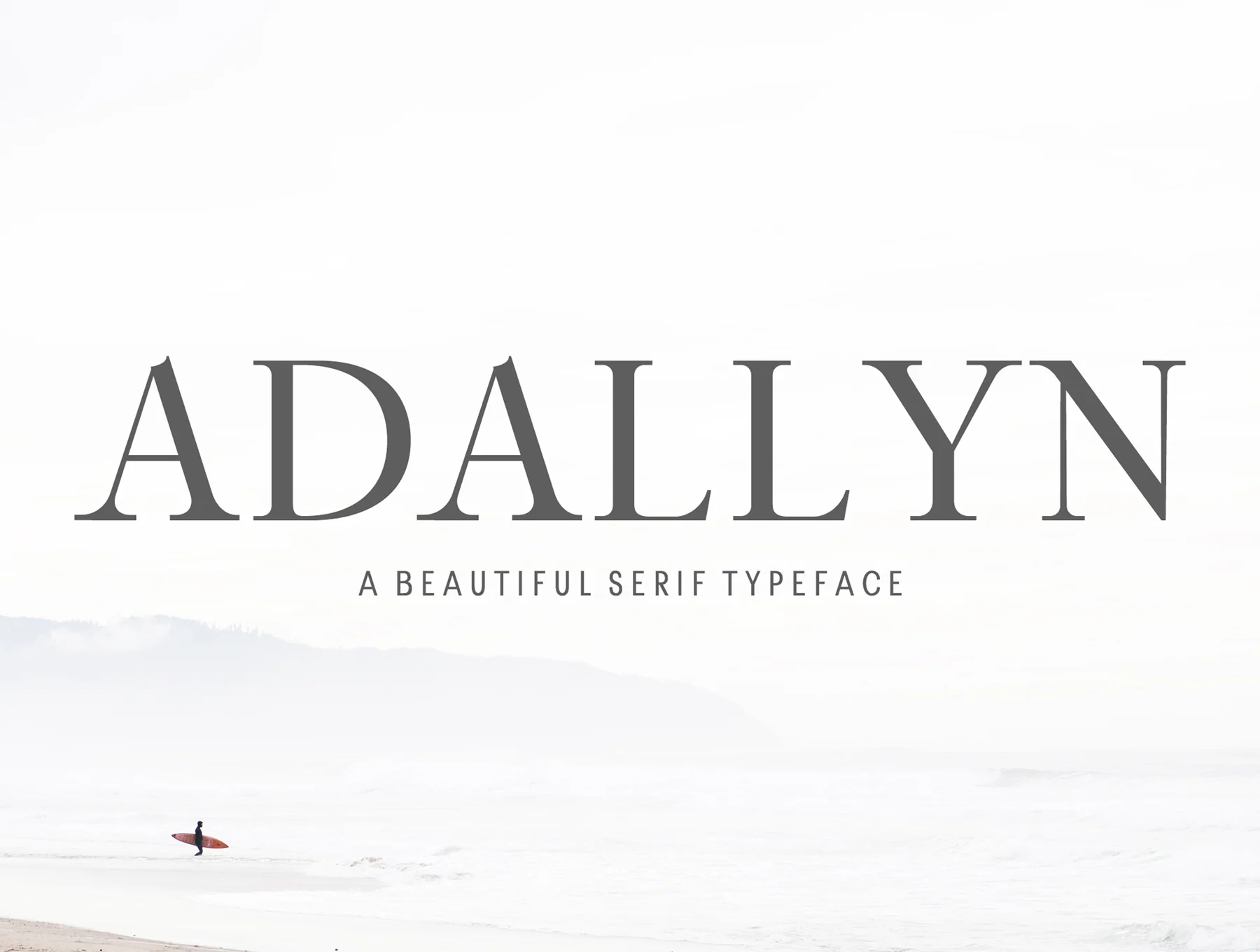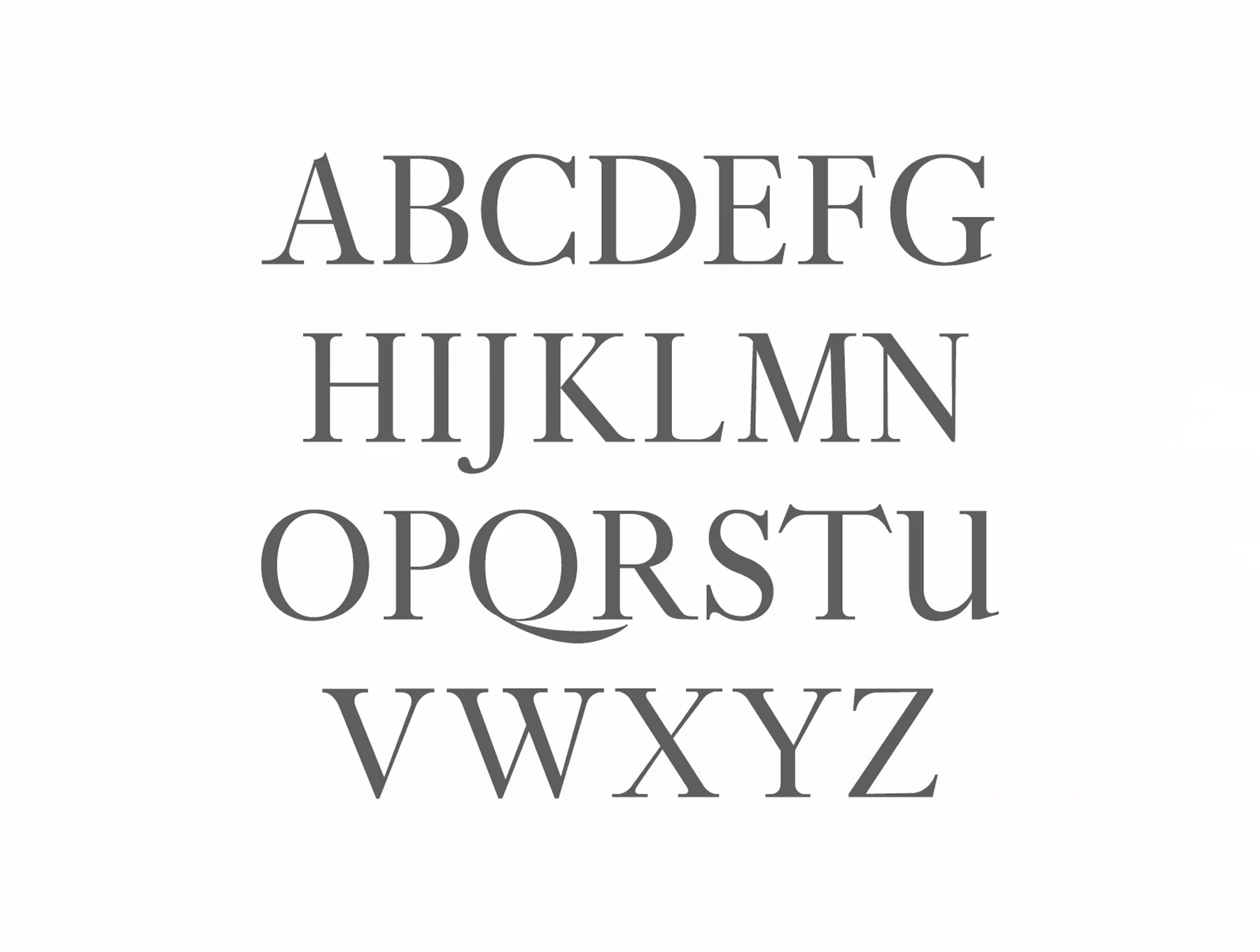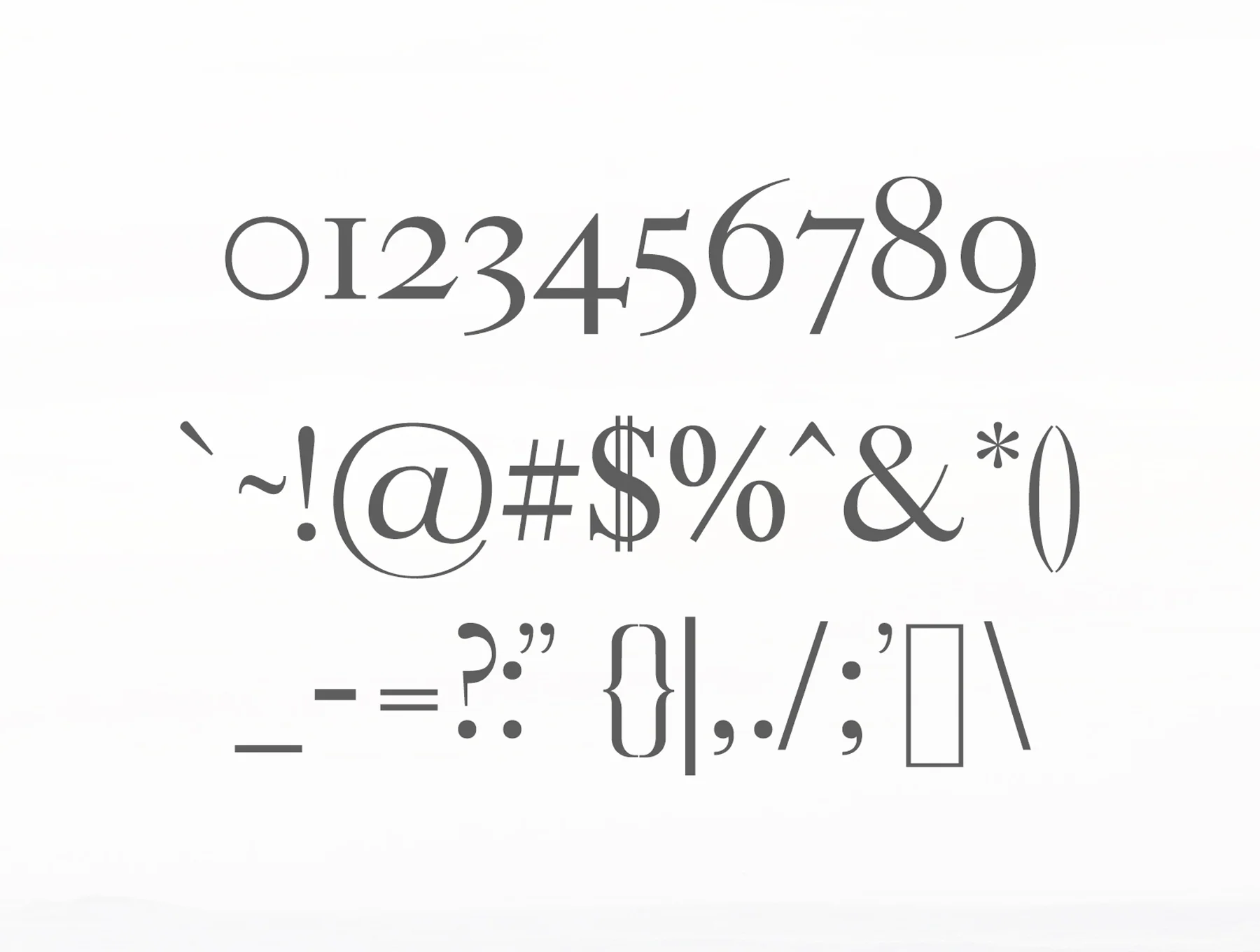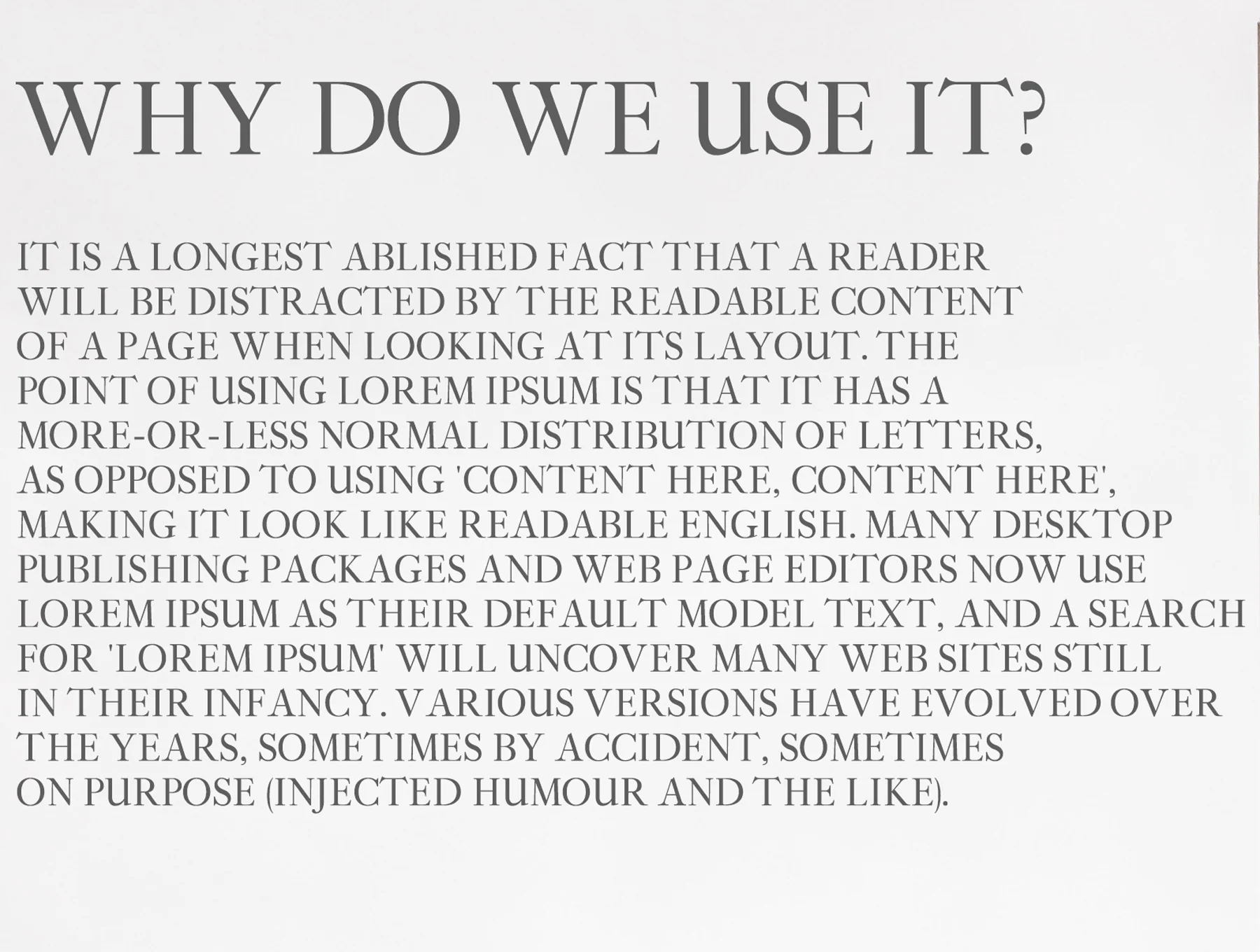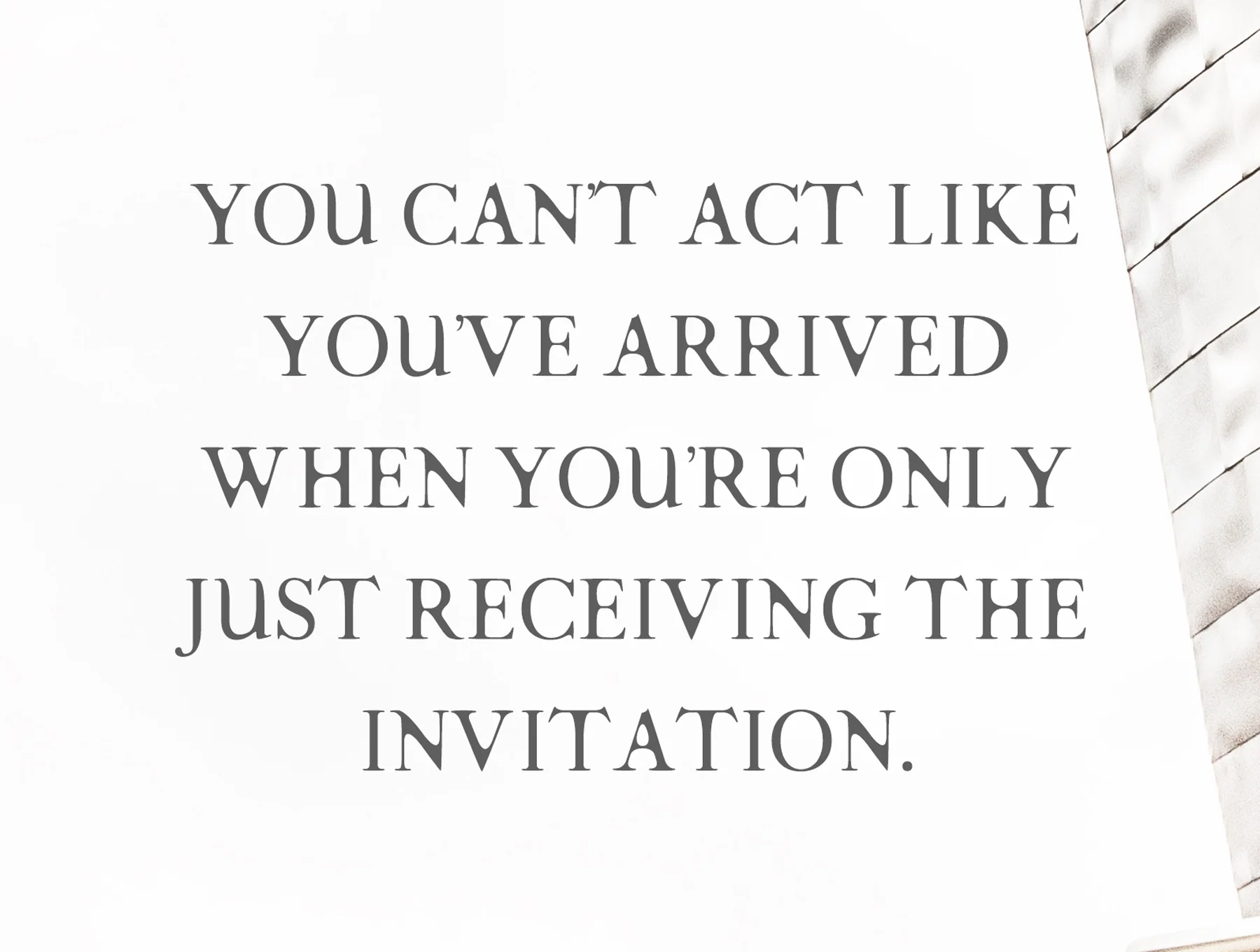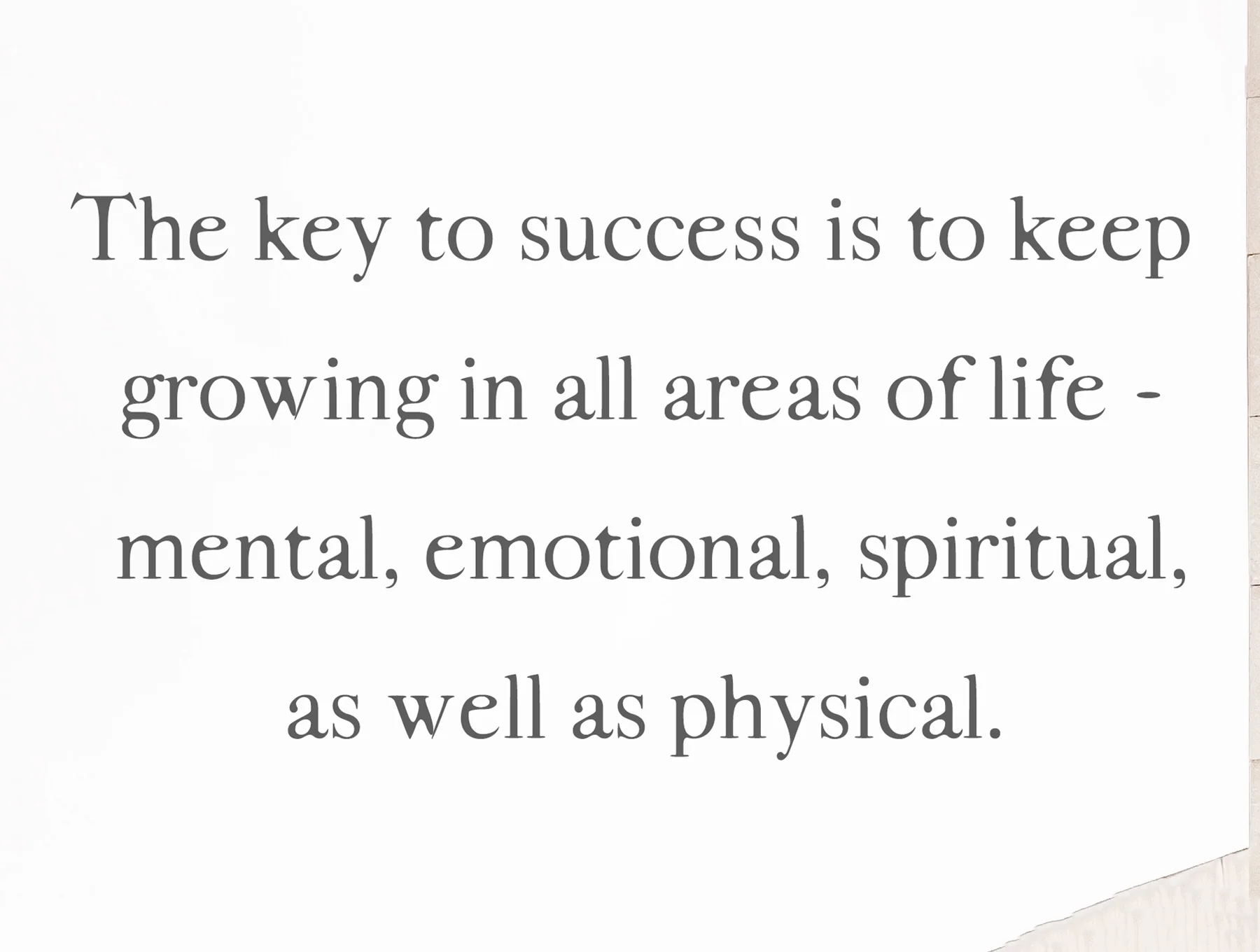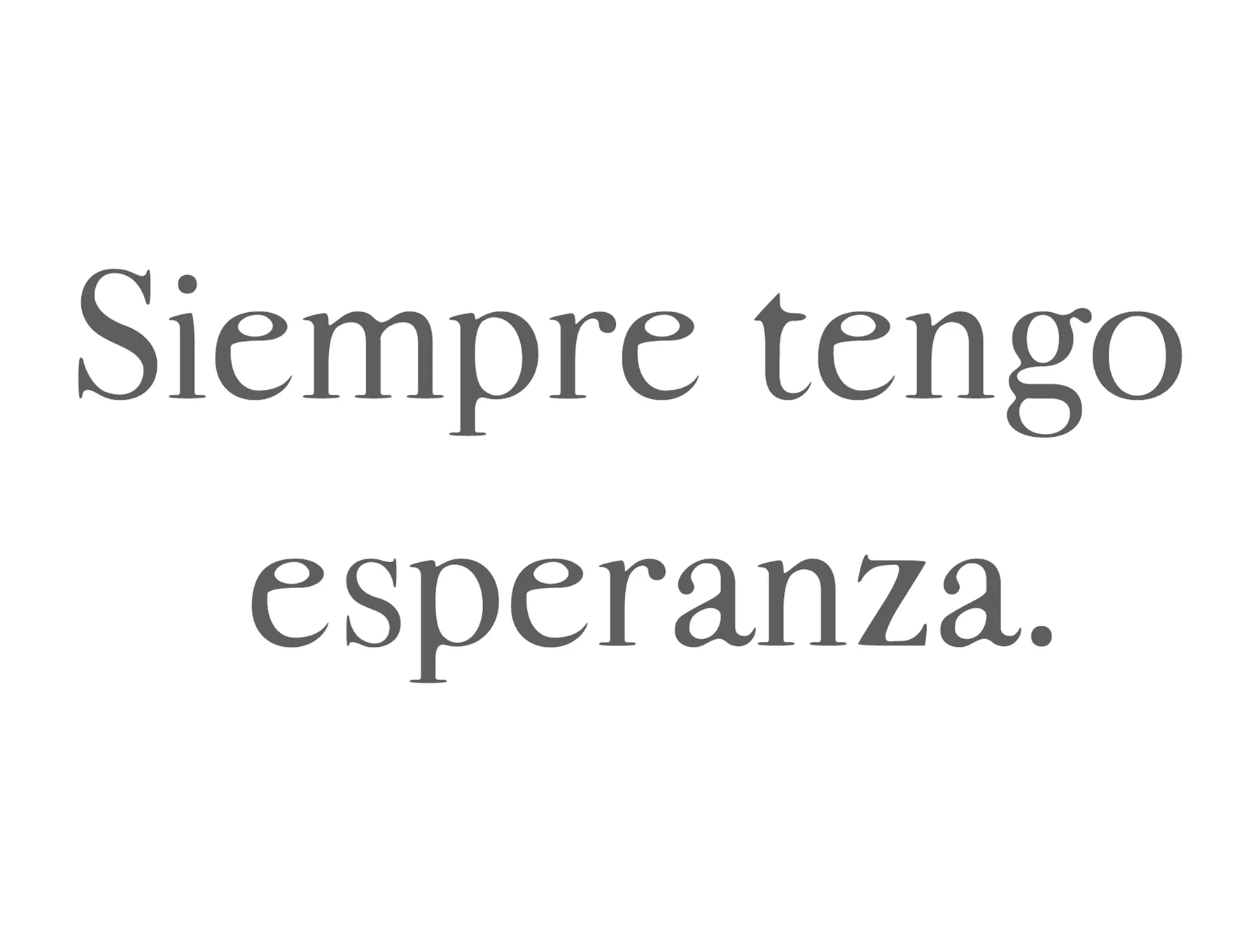
Adallyn Serif Font Family
Serif-style font face
Regular, Light, Smooth and Bold styles
Adallyn Serif Font Family Pack is an elegant serif typeface set with 5 style variations. It includes essential glyphs plus non-English characters, making it suitable for headlines, posters, branding, packaging, presentations, logos, quotes, titles, magazine headers, web layouts, ads, invitations, books, and many creative projects.